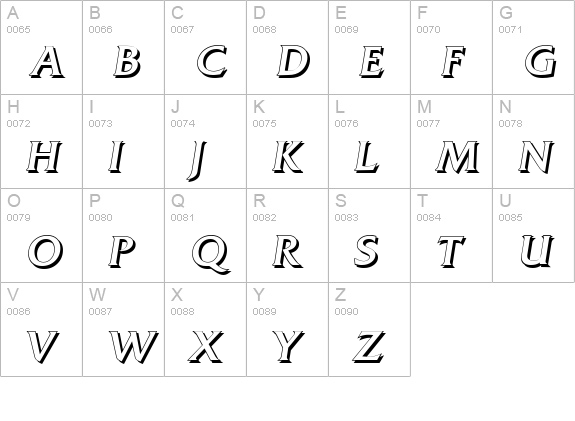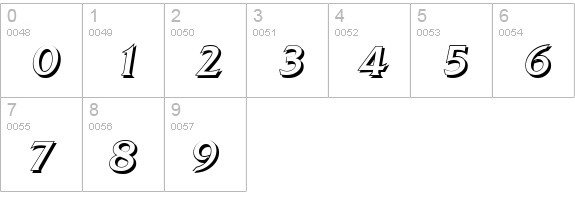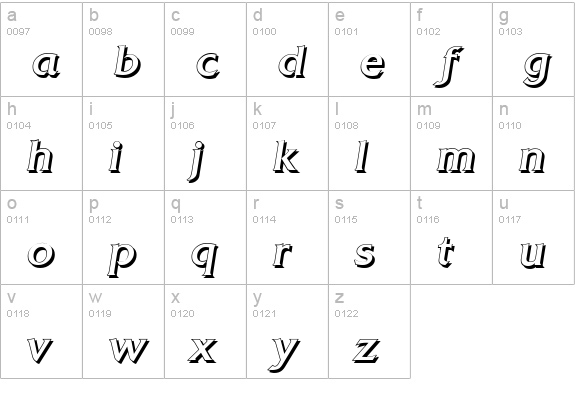
QuadratShadow-Italic Font Details
QuadratShadow-Italic is a distinctive, italic variant in the QuadratShadow typeface family \xE2\x80\x94 well suited to design and typography projects.
QuadratShadow-Italic font is a stylish and eye-catching typeface that exudes sophistication and creativity. With its unique italic styling and sharp edges, this font is perfect for adding a touch of elegance to your projects. The shadow effect adds depth and dimension, making your text stand out in a bold and modern way. The best part? QuadratShadow-Italic font is completely free to download at FontsMarket.com. Whether you're working on a design project, creating branding materials, or simply looking to enhance your personal projects, this font is a versatile choice that will surely make a statement. Don't miss out on the opportunity to elevate your designs with this stunning typeface that is both sleek and impactful. Download QuadratShadow-Italic font today and let your creativity shine!